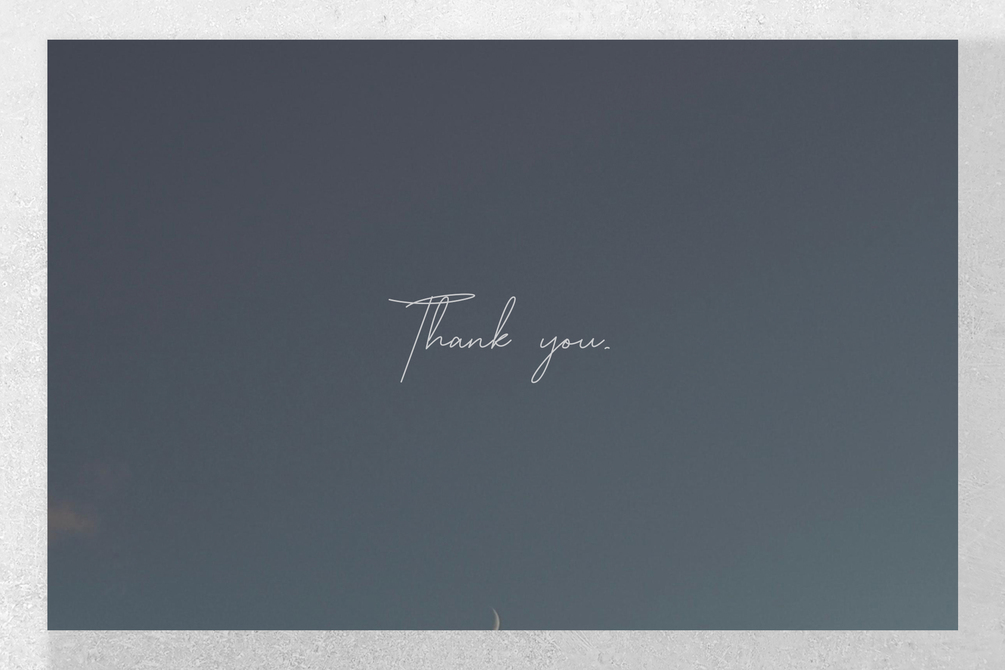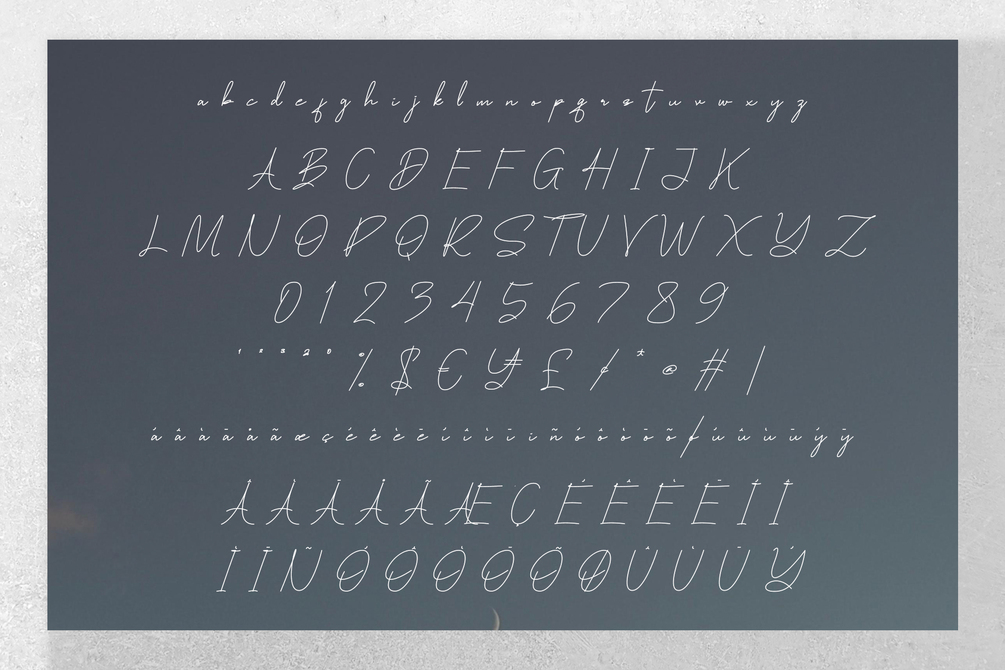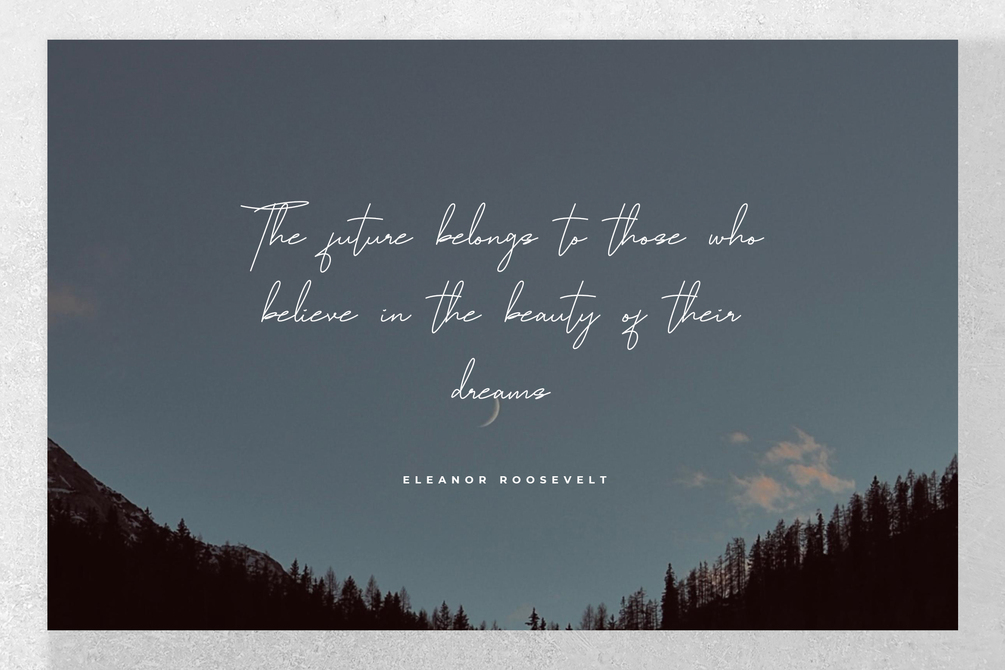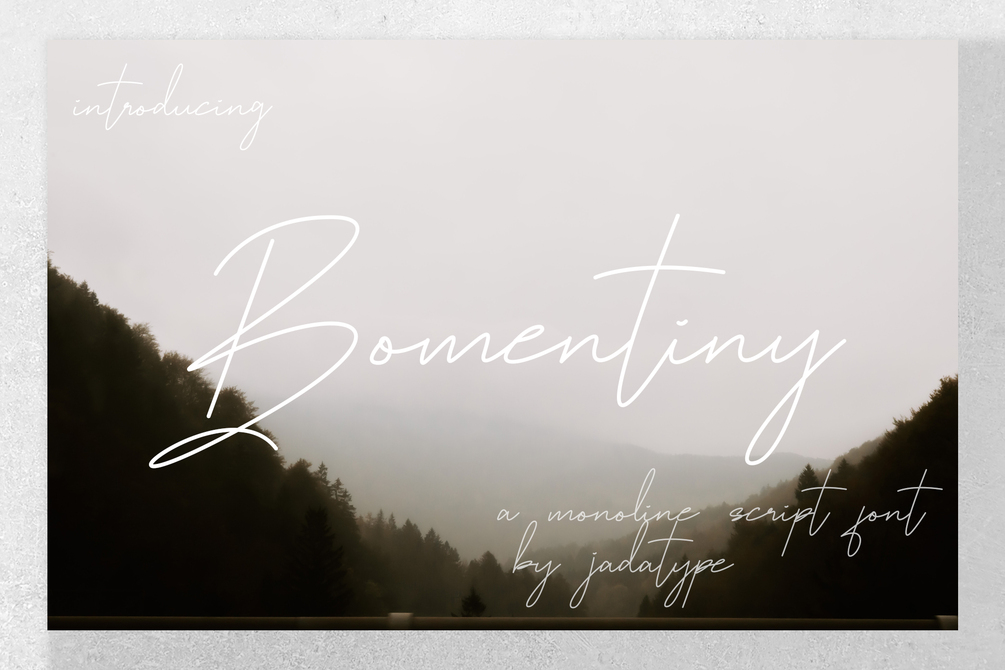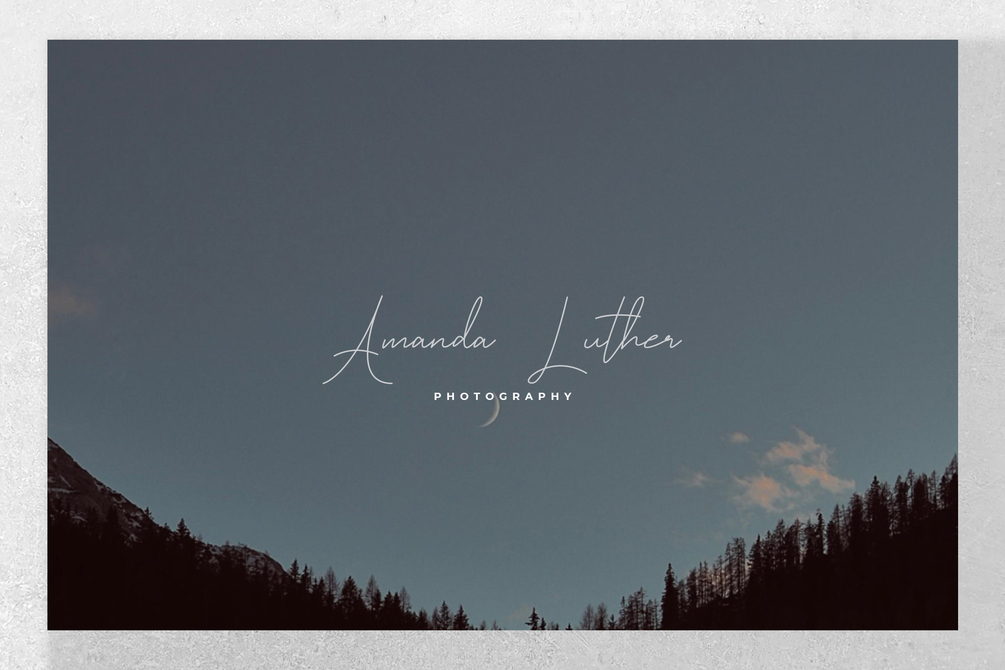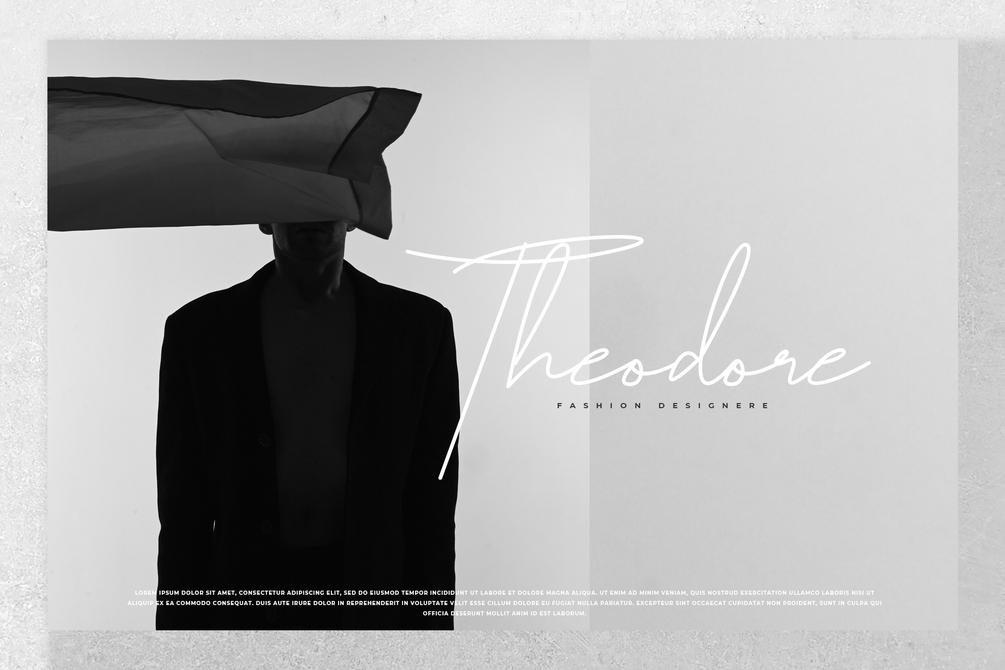
Bomentiny Font
Bomentiny is a font with a stylish script. suitable for social media, branding, craft, logotype, products, handwritten, and so on. contains standard English letters, numbers, punctuation, and several accents that support multilingualism.